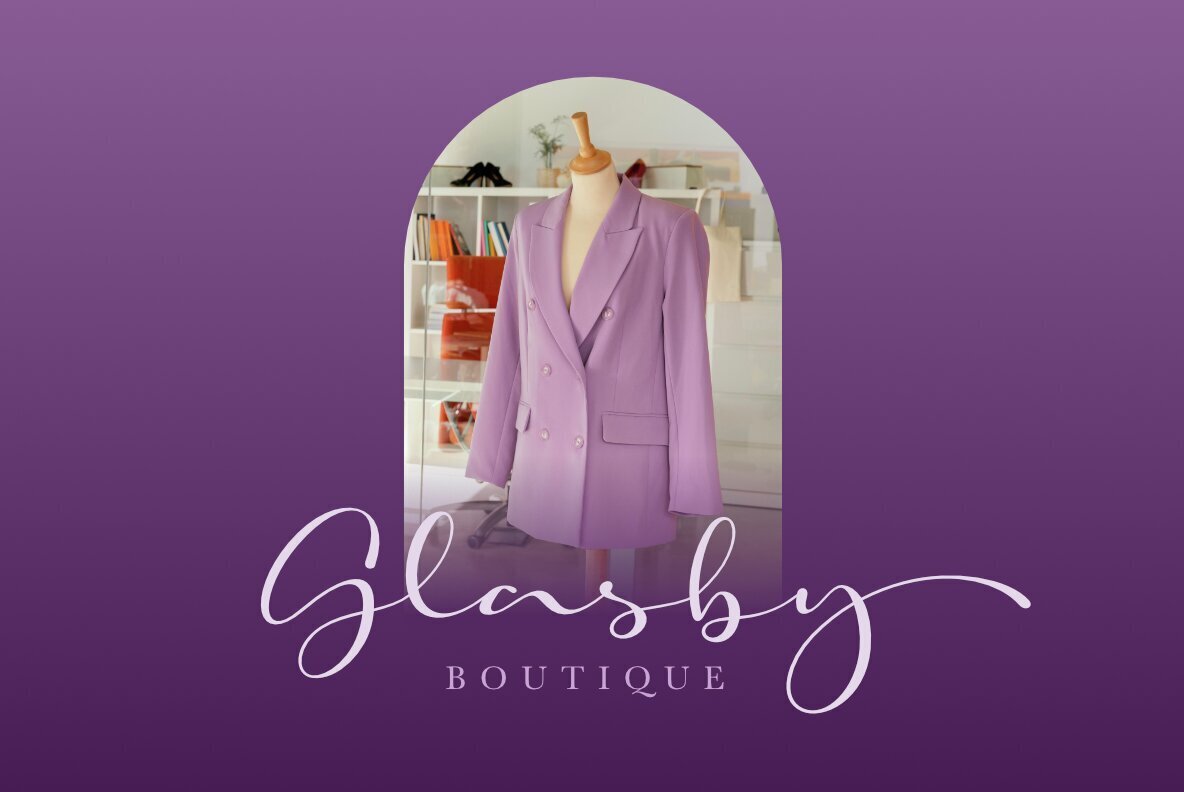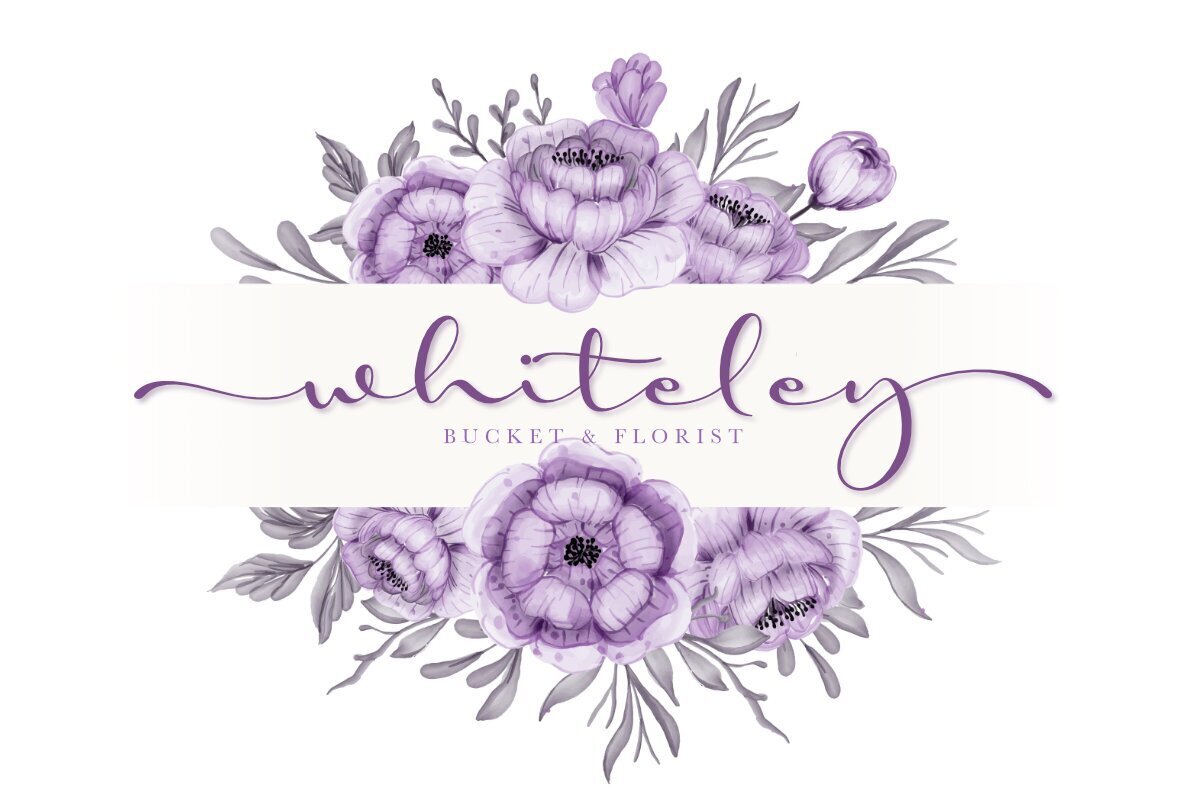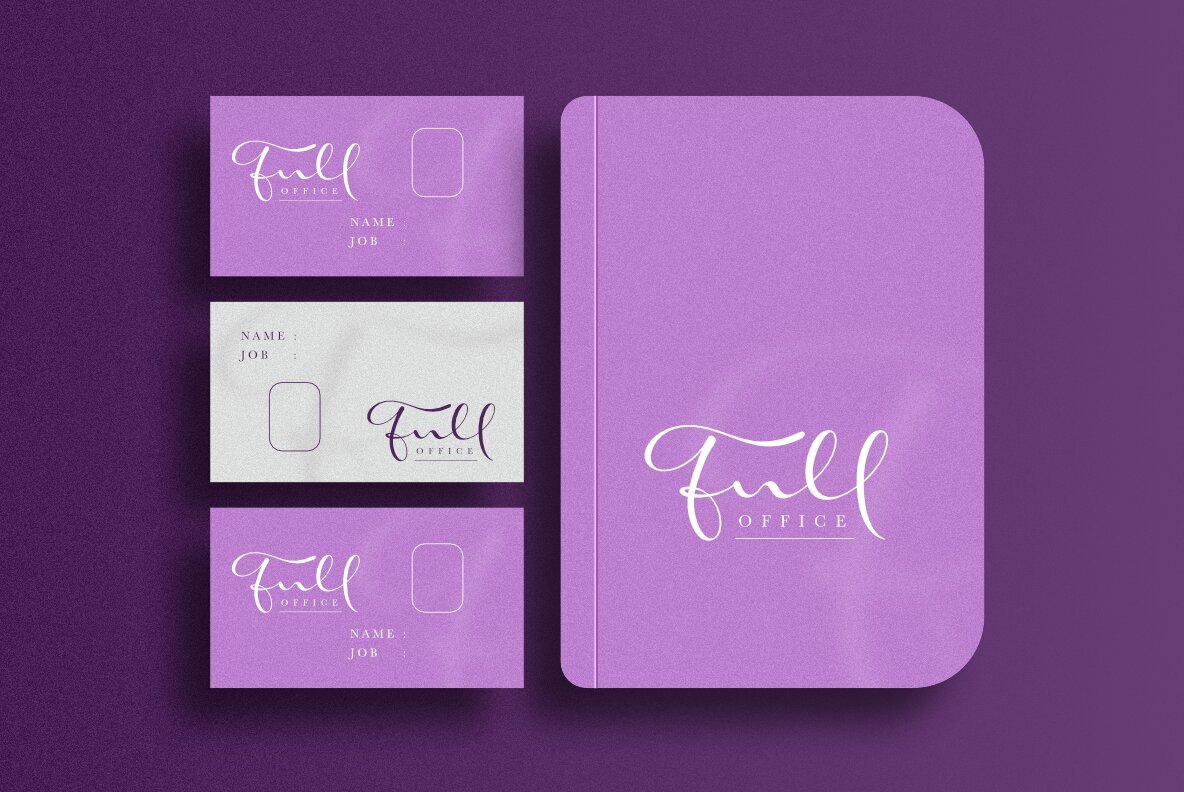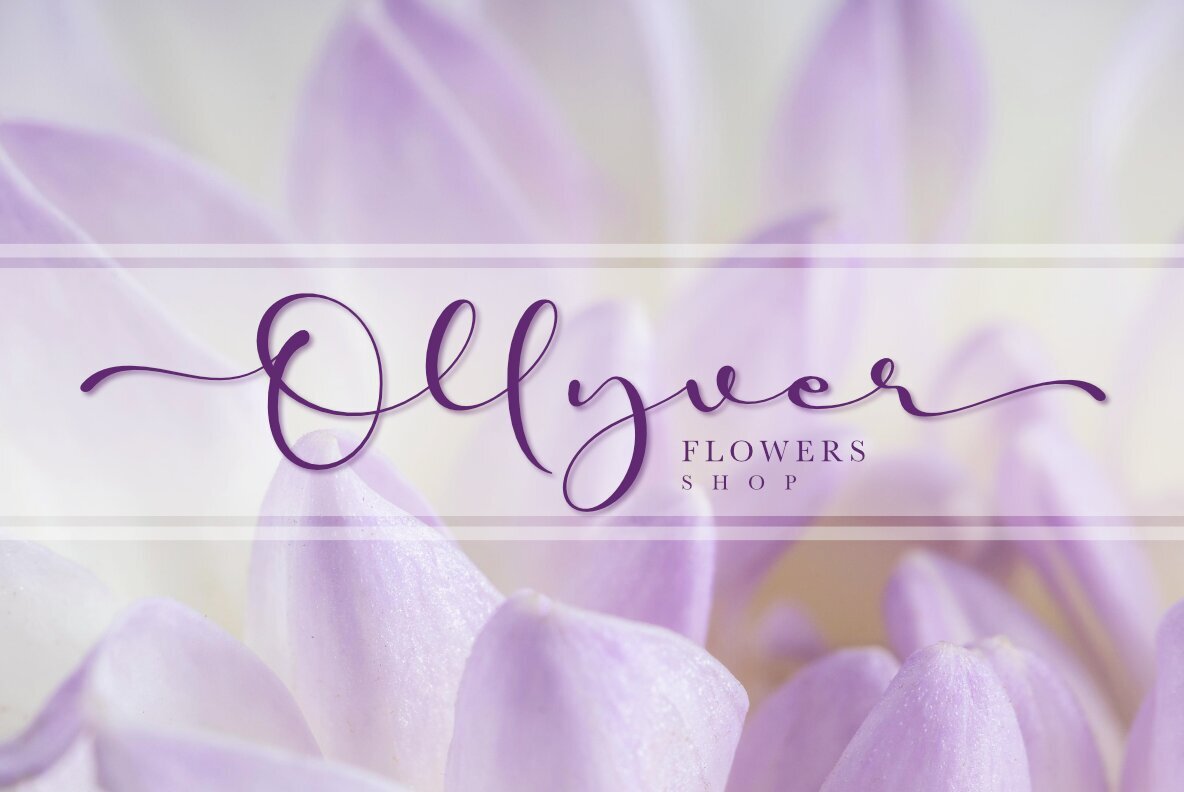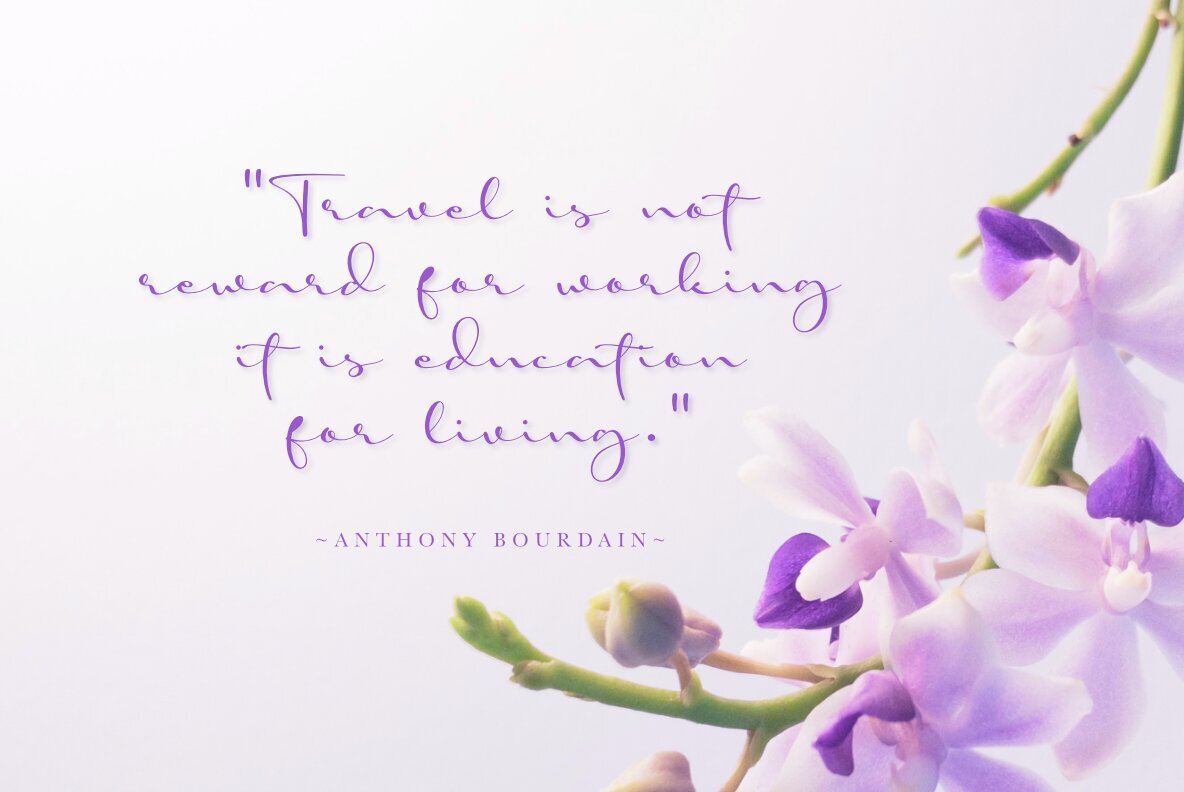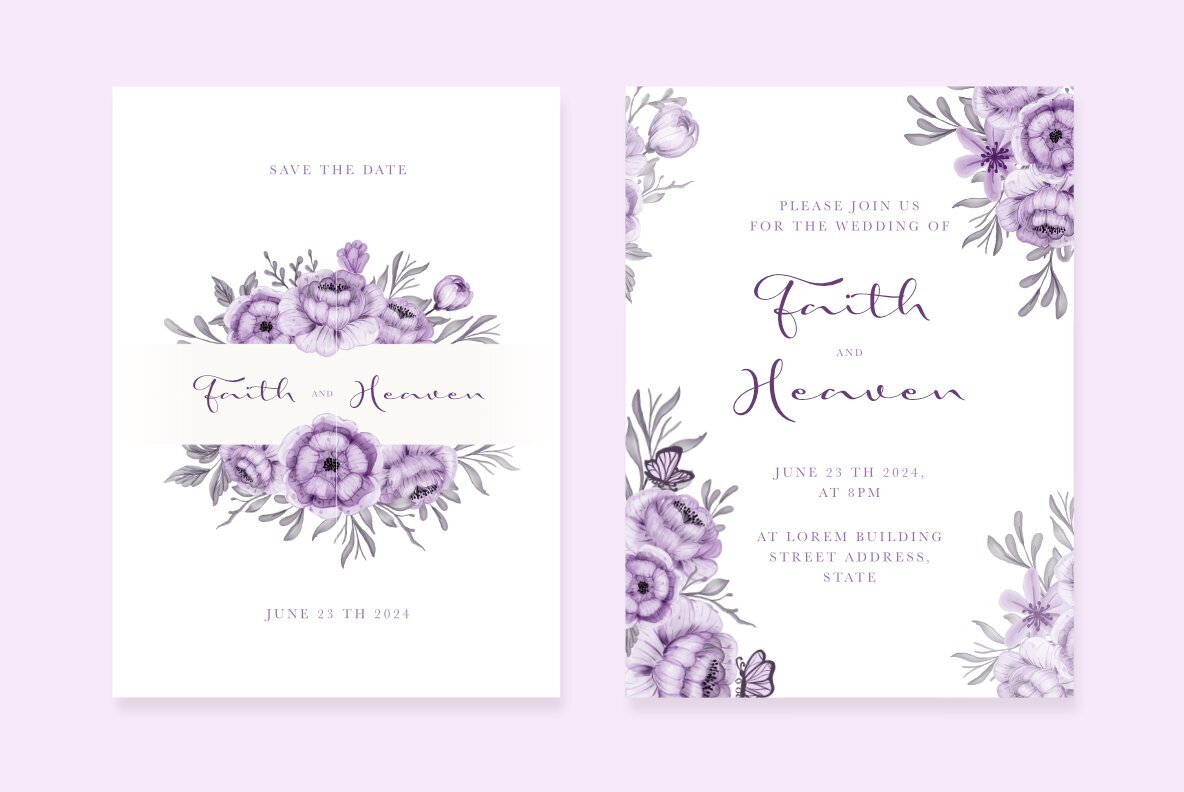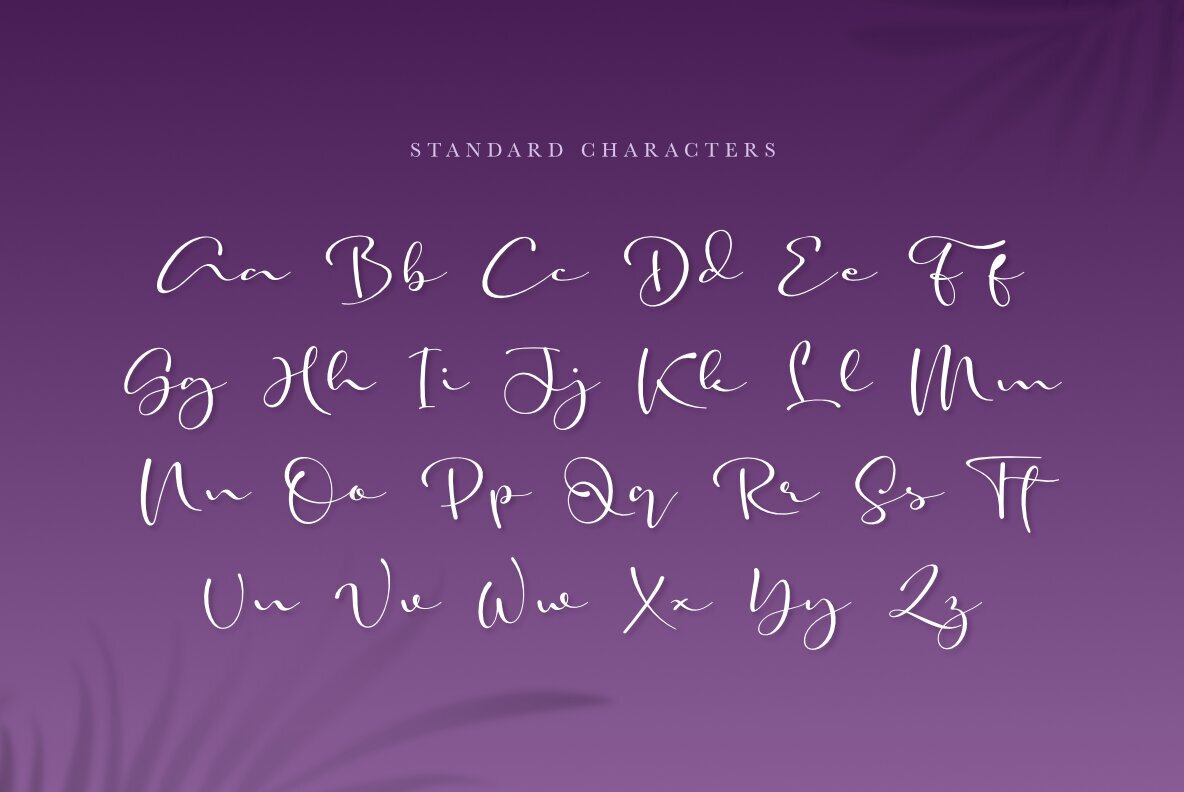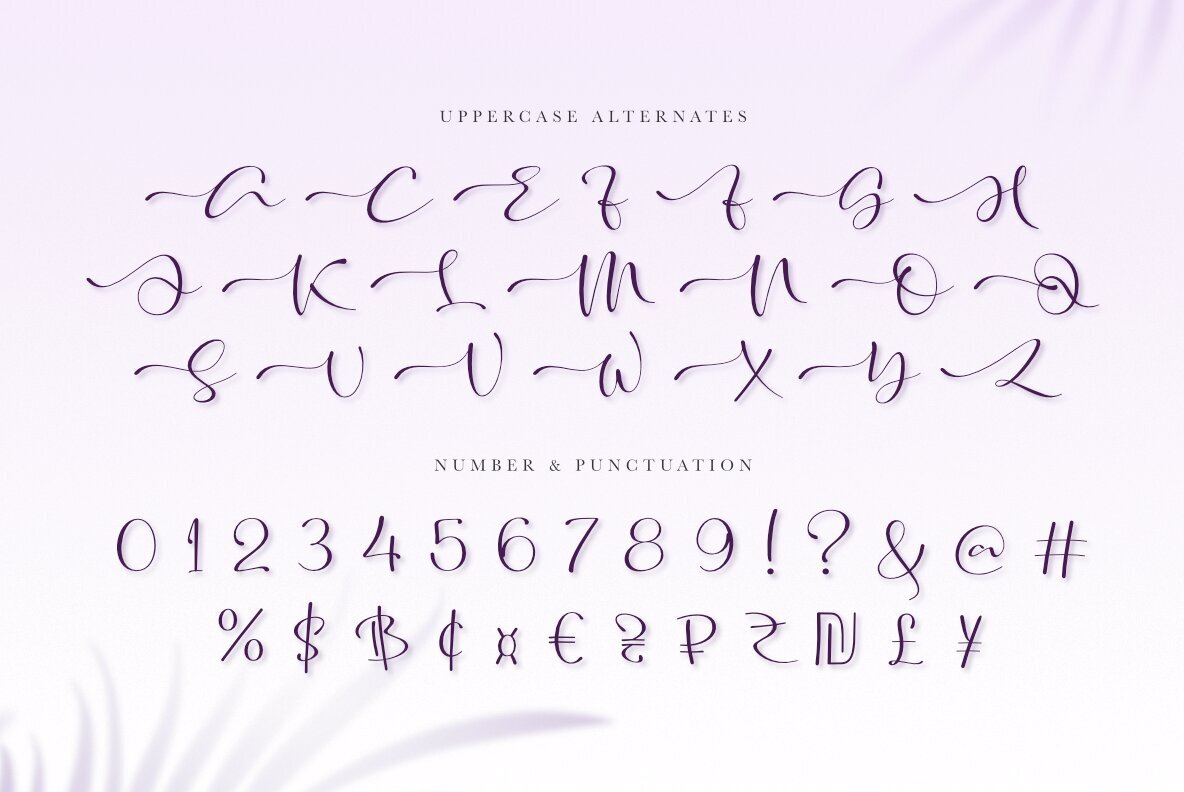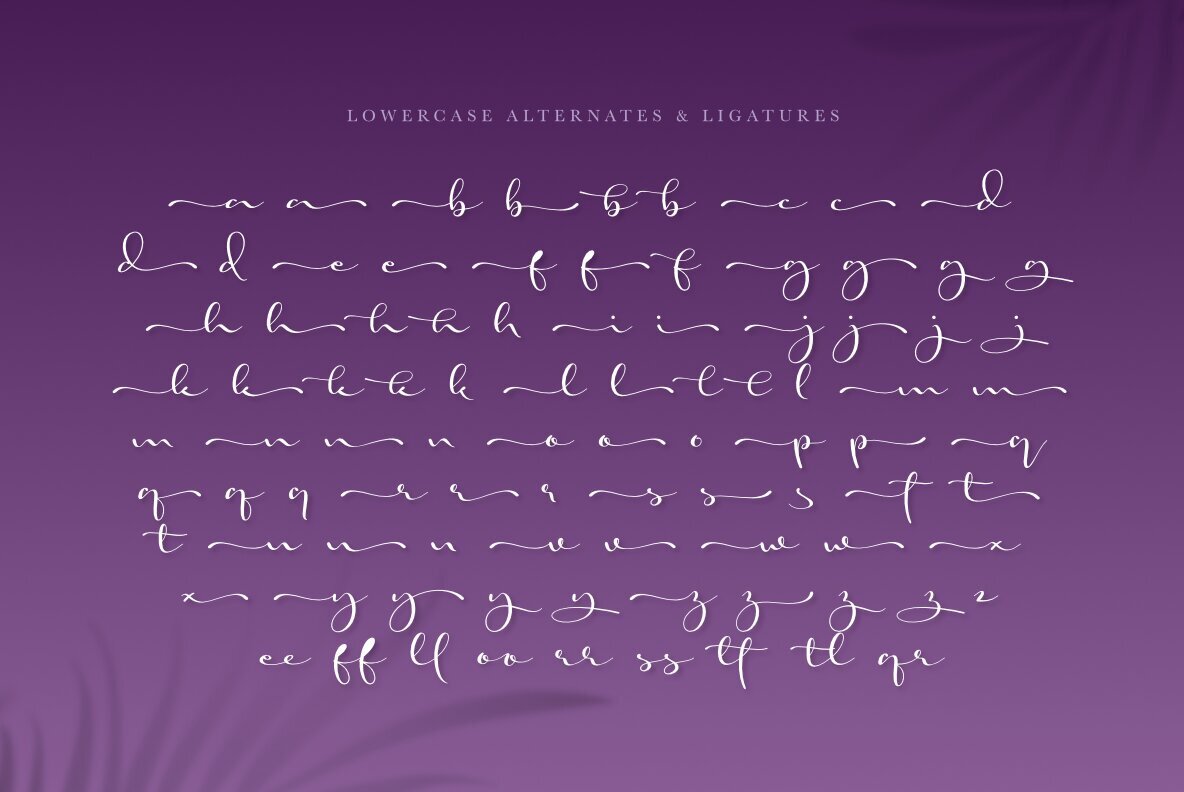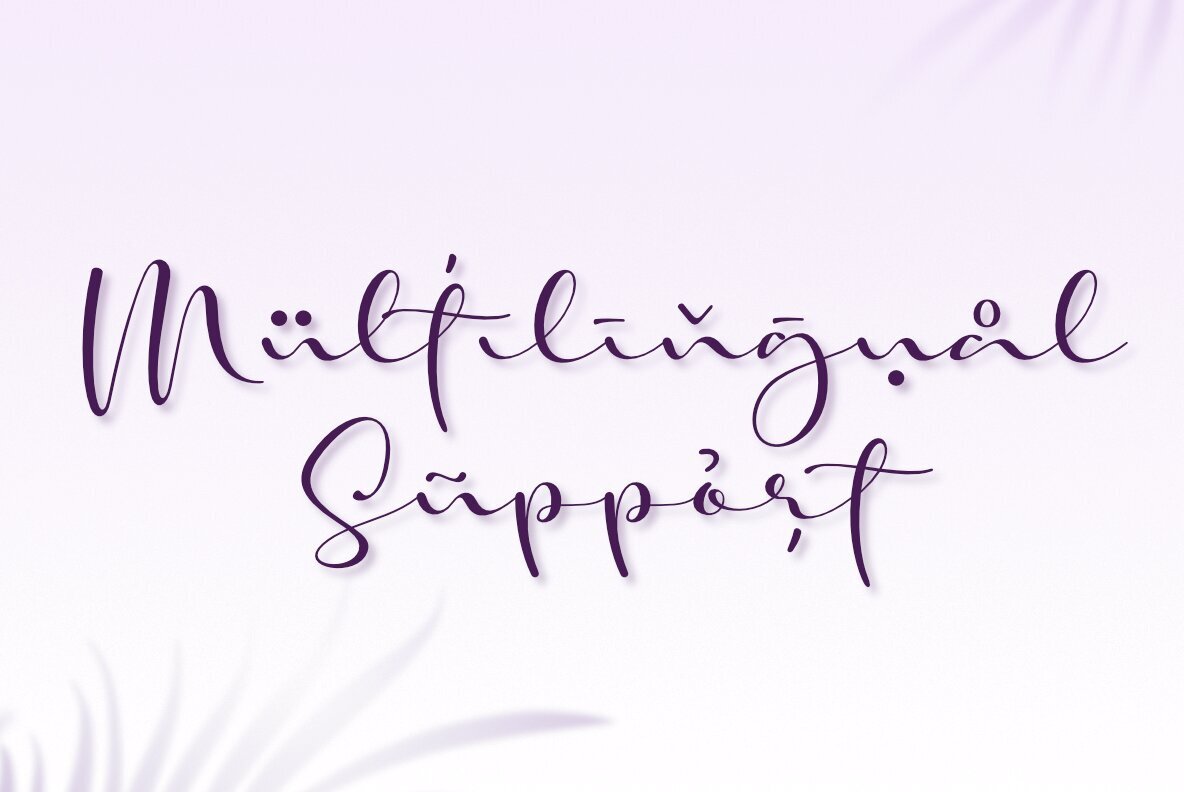
Freya Callysta
Freya Callysta is a sophisticated handwritten font featuring a modern calligraphy style designed to enhance your projects with an elegant and strong aesthetic. Created with meticulous hand strokes, Freya Callysta offers a unique writing style. The font includes many alternates and ligatures, providing flexibility and beauty for your design needs. Ideal for a variety of projects, Freya Callysta is perfect for logos, branding, wedding invitations, quotes, magazine covers, packaging design, and more.Freya Callysta: Elegant Handwritten Calligraphy Font
Unique Handcrafted Style
Versatile Design Applications